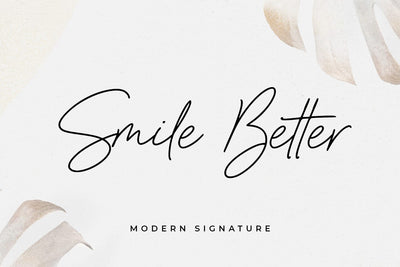
Smile Better
introducing
SMILE BETTER
- casual signature font-
SMILE BETTER is beautiful signature font.
It is great for branding, wedding, quotes, logos, t-shirt designs, tote bag designs, cards, banners, social media, and more.